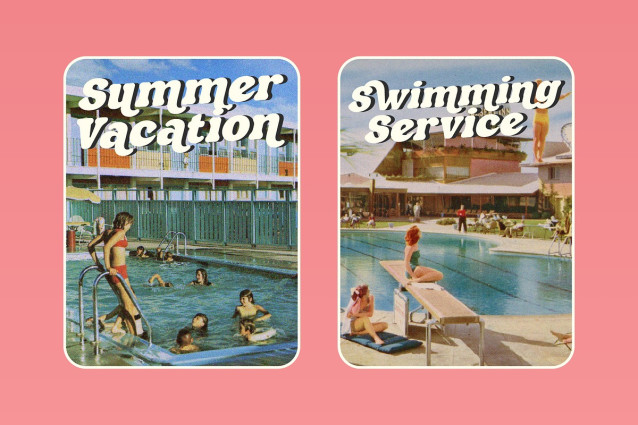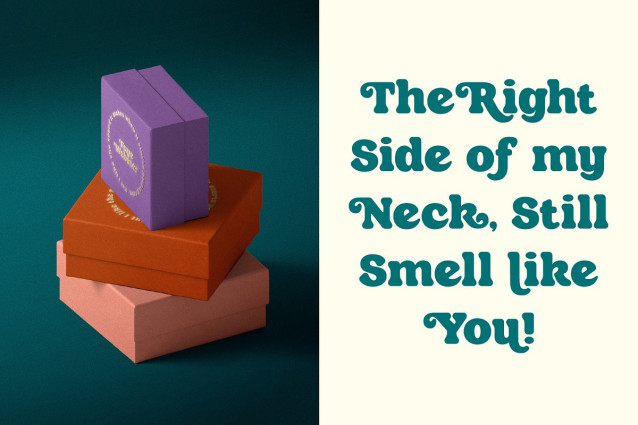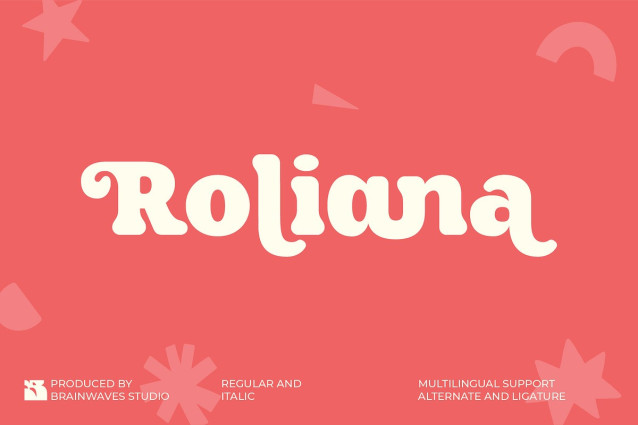
Roliana Retro Font, the charming display serif font that’s bursting with retro groovy vibes! This unique typeface brings a delightful blend of vintage nostalgia and modern flair to all your creative projects. Imagine your designs instantly captivating audiences with Roliana’s chunky, bold serifs and playful, bubbly curves.
Roliana isn’t just a font; it’s an experience. Its distinctive alternates and ligatures allow you to craft truly one-of-a-kind headlines, logos, and branding that stand out from the crowd. Perfect for capturing that sought-after 70s or 80s feel, it ensures your message is both impactful and incredibly stylish. Whether you’re designing a chic cafe logo or a fun social media graphic, Roliana adds that special touch of personality and charm.